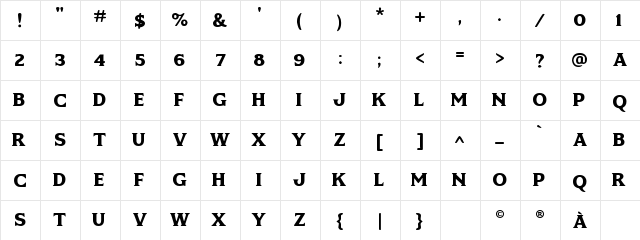
Motlow Caps Regular
Design Context for Motlow Caps Typeface
Motlow Caps takes a measured approach to typography — its balanced proportions and neutral character make it a reliable workhorse for both digital and print work.